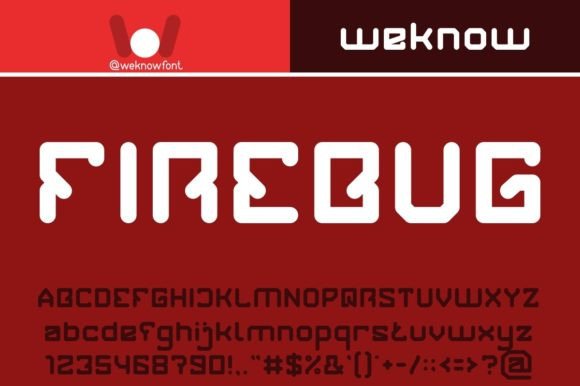
Immerse your designs in the captivating glow of Firebug, the display font crafted to ignite your creative vision. Its futuristic allure and bold presence will transform your projects into captivating masterpieces.
Whether you're crafting a music video that demands an otherworldly ambiance or creating a design that exudes a cutting-edge edge, Firebug is your perfect companion. Its sharp lines and striking angles will command attention, transporting your audience to a realm of innovation and style.
Beyond its visual brilliance, Firebug is a font engineered for ease and precision. Its clean, legible forms ensure seamless readability, while its versatility allows it to adapt effortlessly to any design concept. Unleash your imagination and let Firebug ignite the flames of your creativity.
* Embark on a futuristic design adventure.
* Create designs that radiate boldness and innovation.
* Captivate your audience with its otherworldly glow.
* Experience effortless readability and adaptability.
* Inject a spark of inspiration into your creative endeavors.